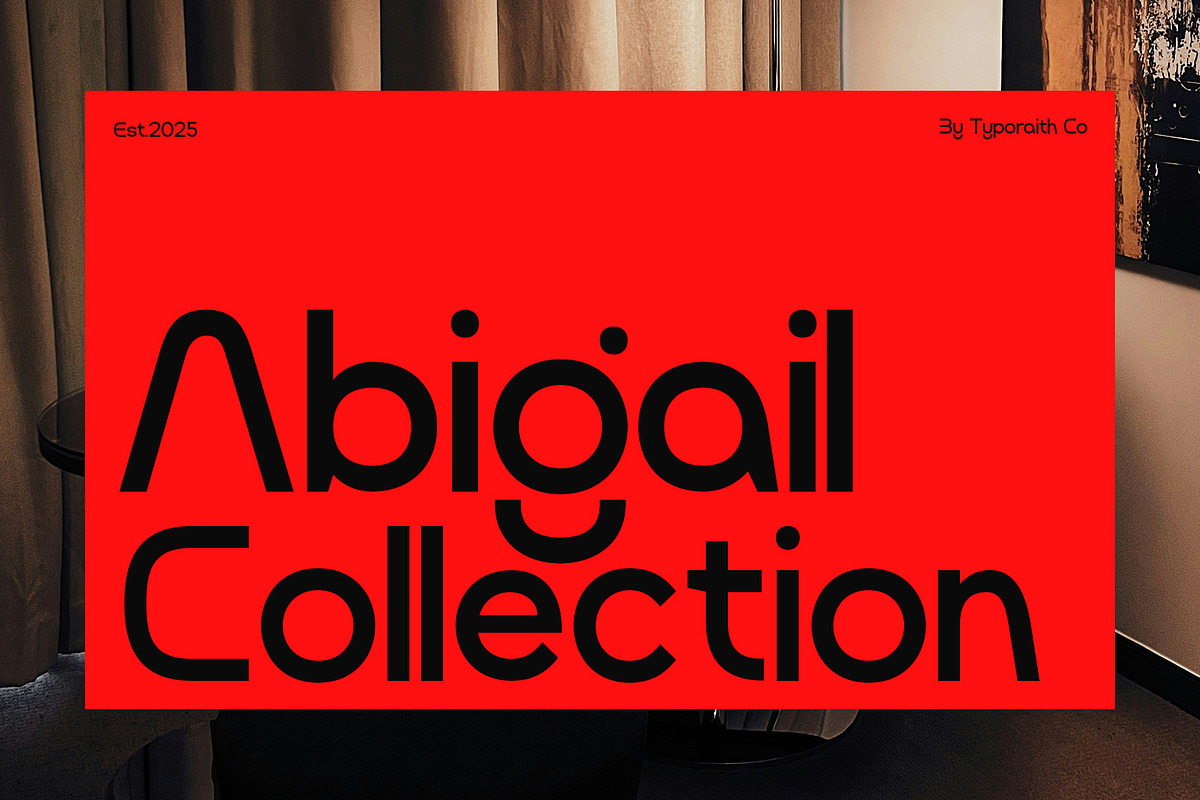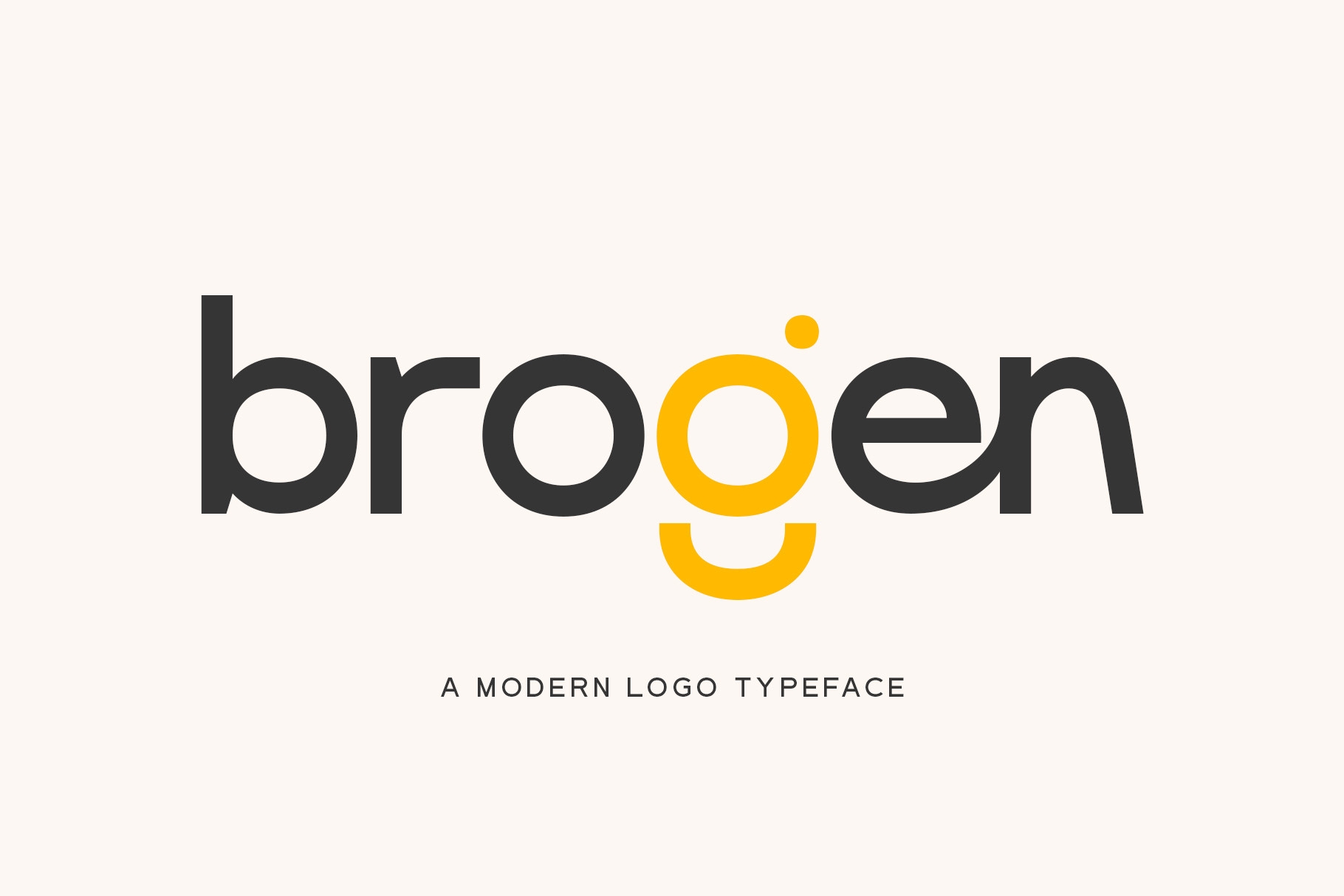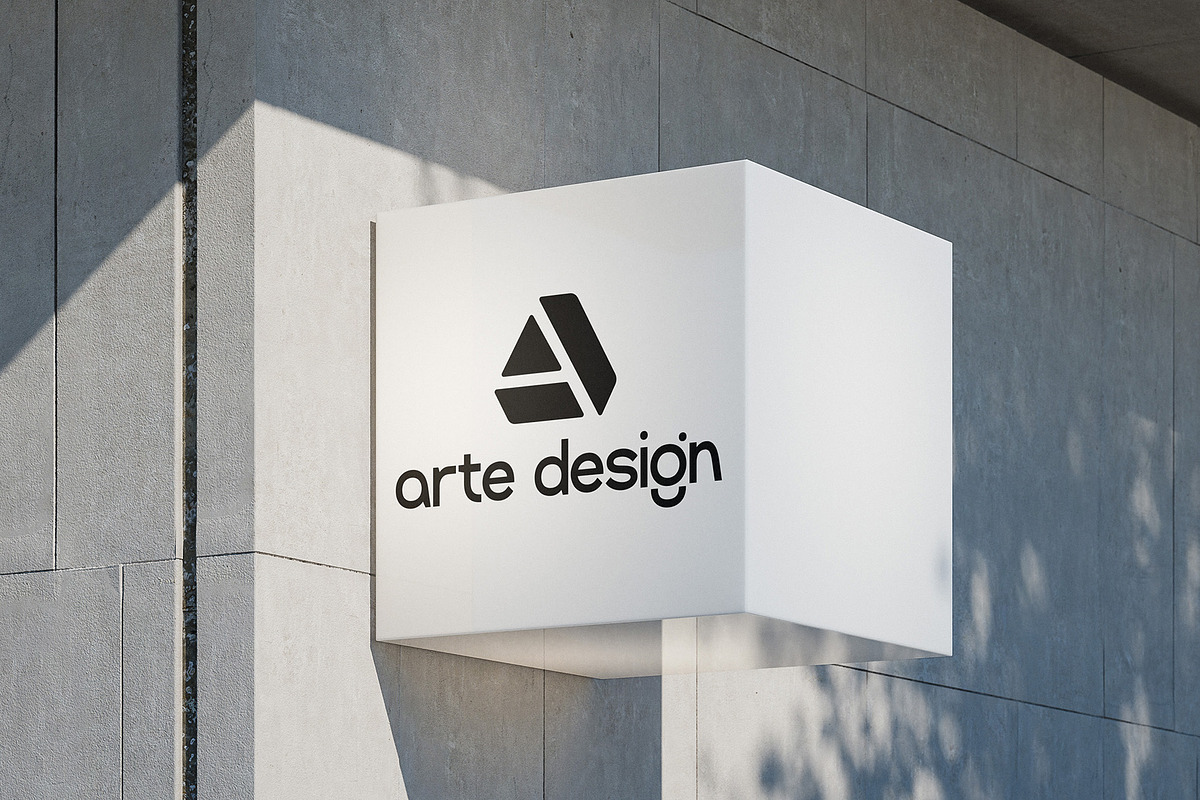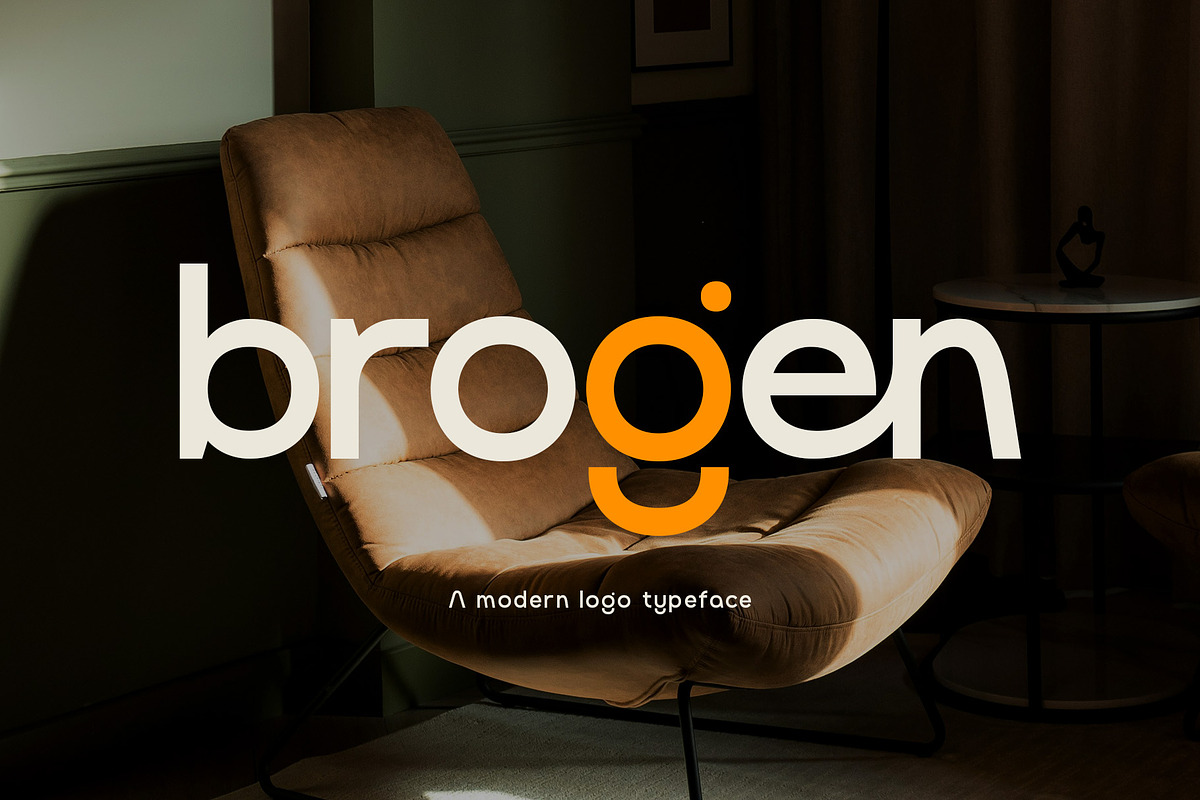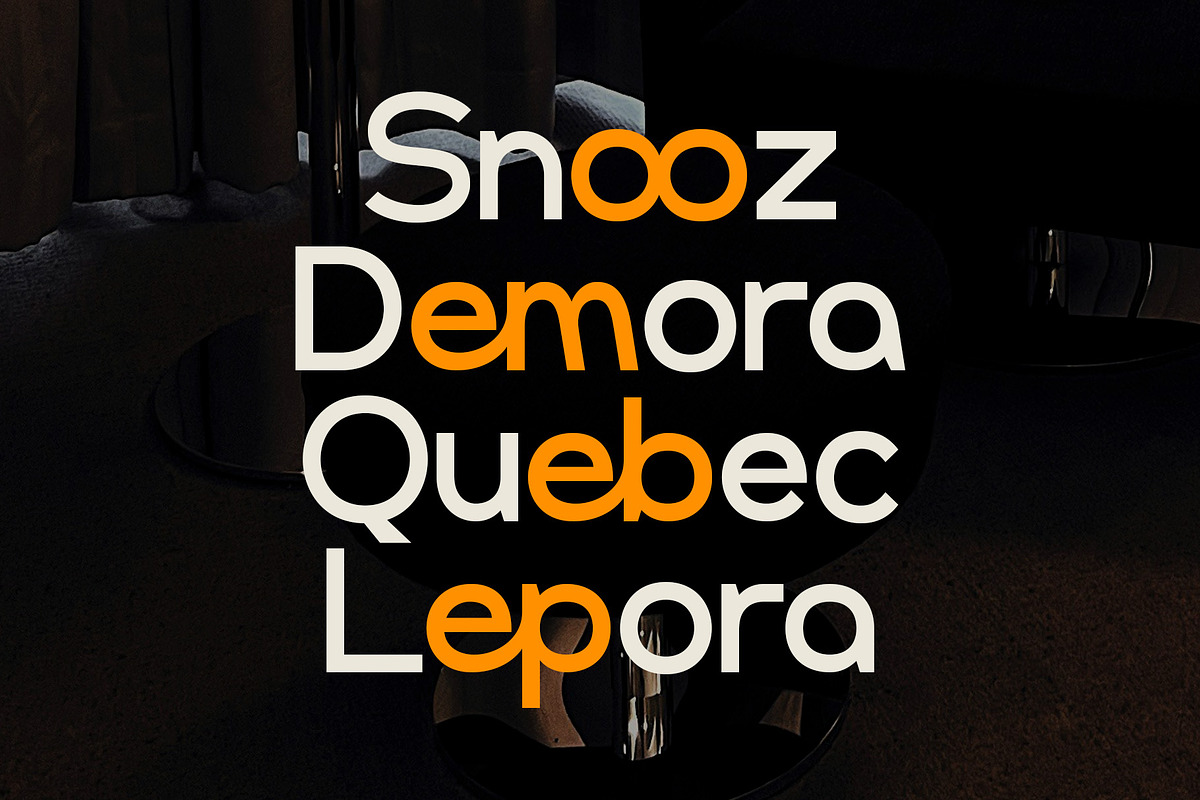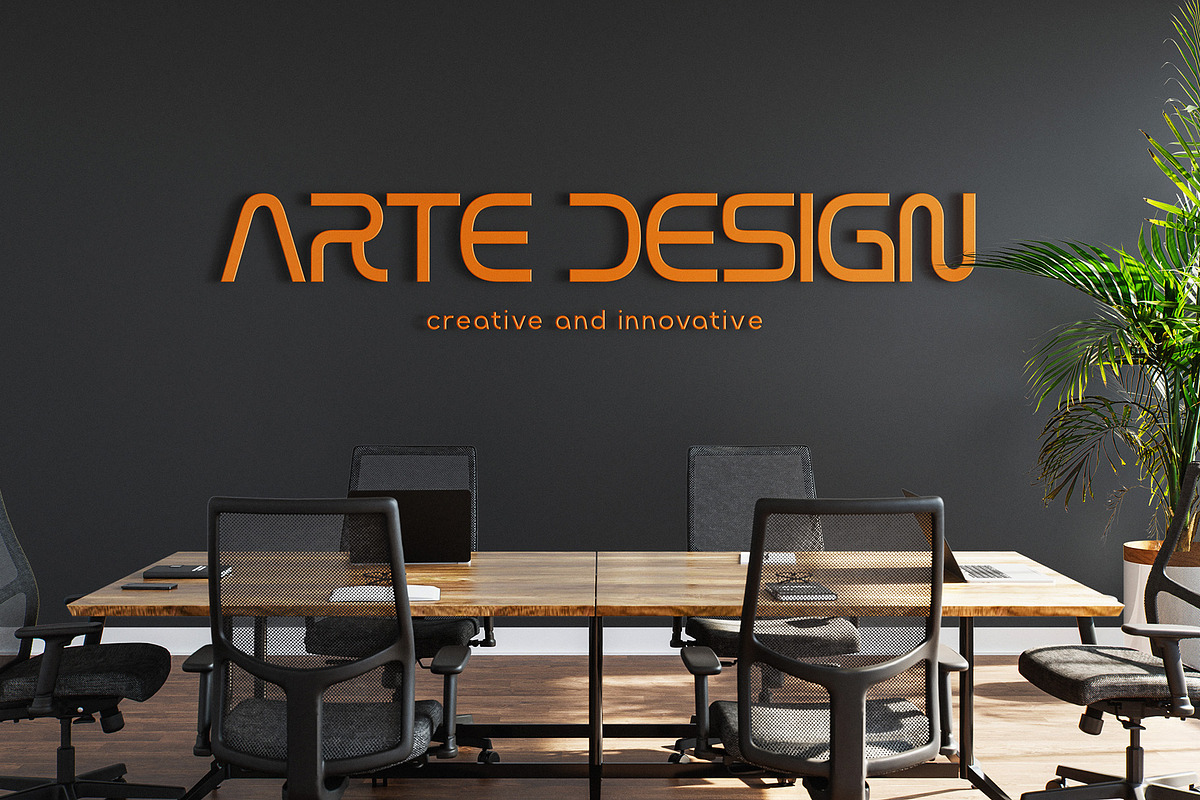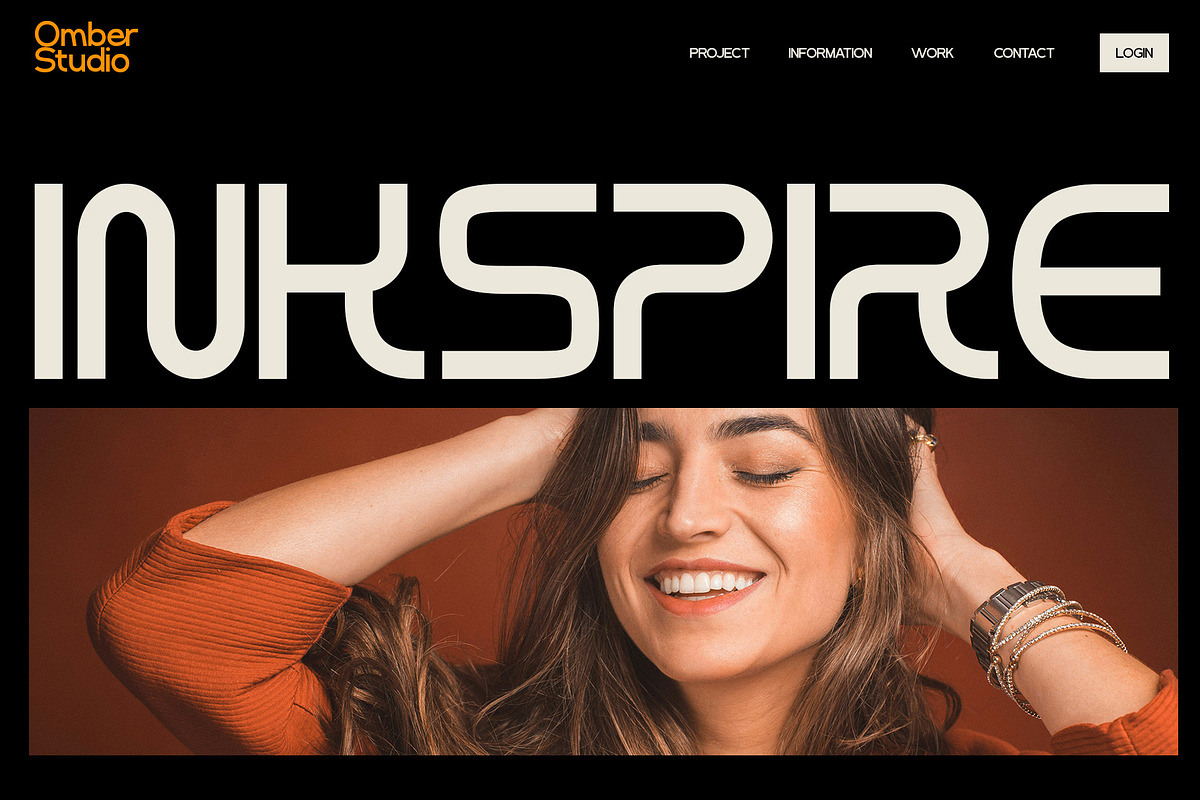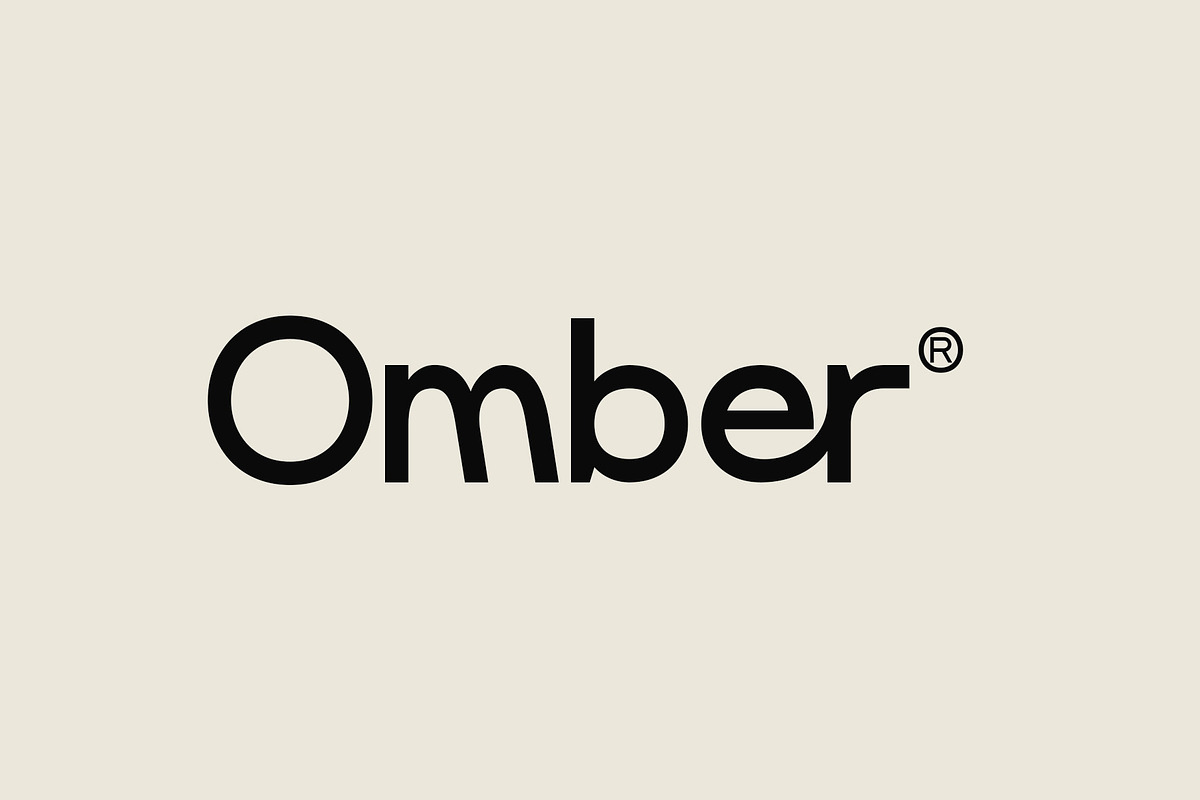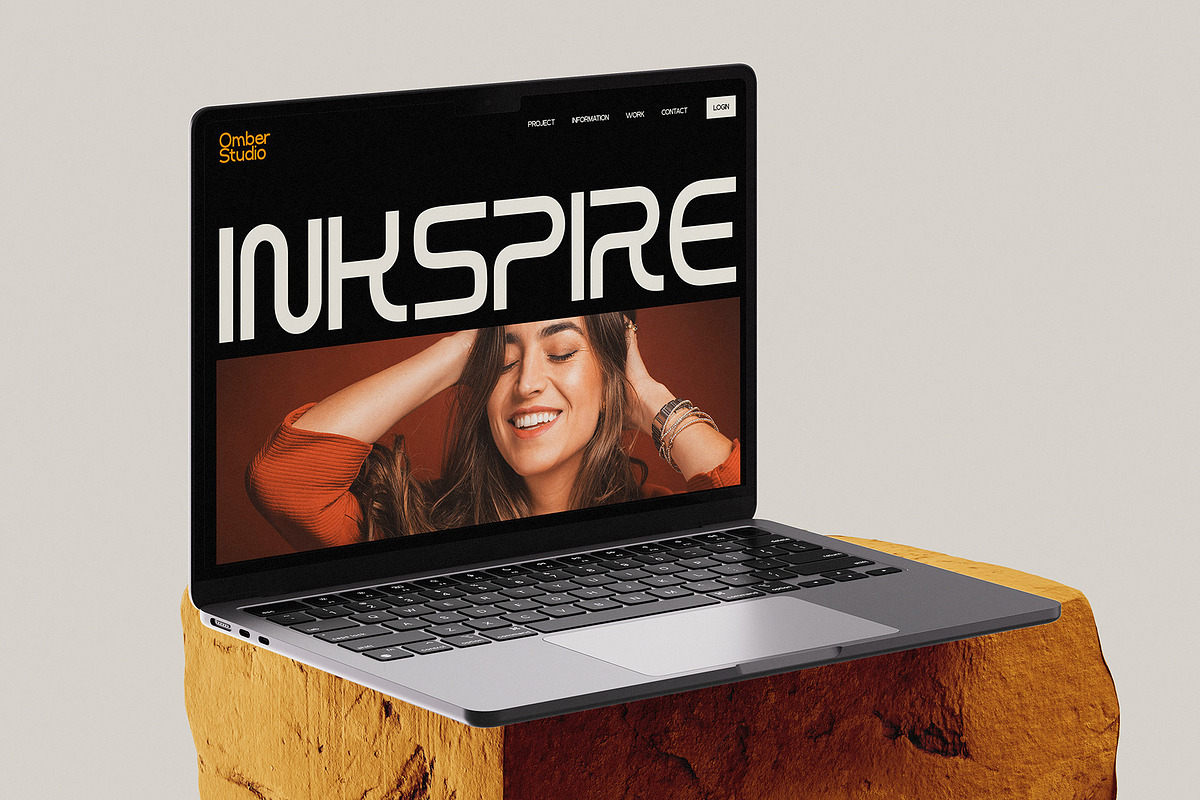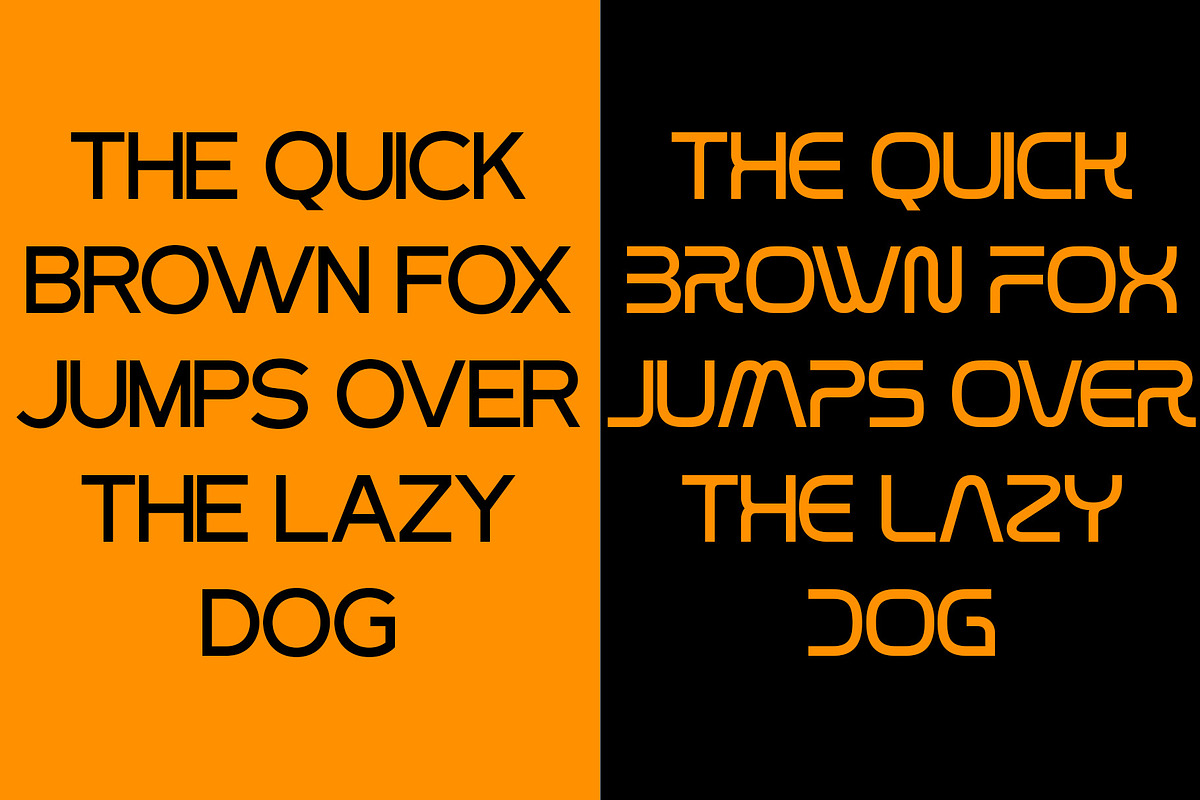
Brogen | Modern Logo Typeface
Brogen is a sleek and minimalist logo typeface designed to bring a contemporary touch to your branding projects. With its smooth curves, geometric precision, and standout lowercase “g” character, Brogen blends style and clarity, making it the perfect choice for logos, headlines, packaging, and modern editorial layouts.
This versatile font offers a bold yet friendly personality, ideal for creative professionals seeking a distinct typographic voice. Whether you're working on tech branding, furniture catalogues, or lifestyle campaigns, Brogen ensures your design remains fresh, readable, and memorable.
Make your brand stand out with Brogen — a typeface that speaks modern elegance with simplicity.